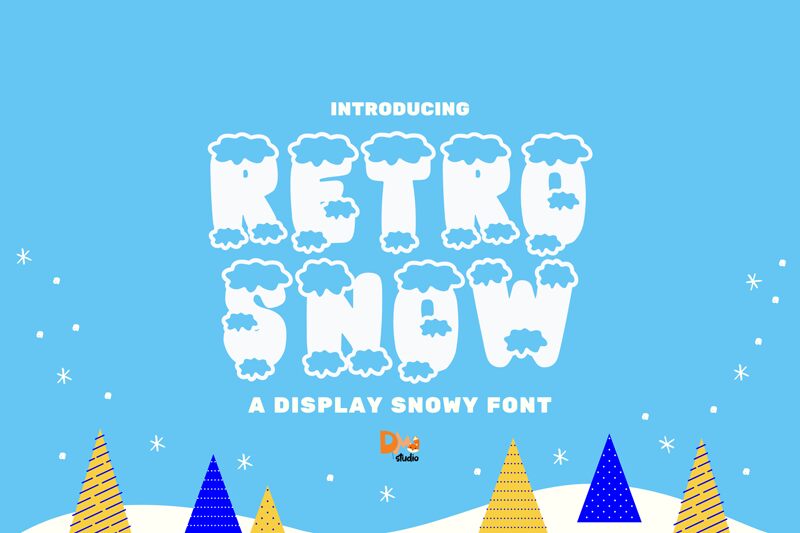
Retro Snow font by DM Letter Studio - Dimas Prasetyo embodies a festive, cheerful holiday spirit. It has a whimsical style which gives it a bold presence and an overall nostalgic feel. The eye-catching letter design suggests a winter theme that adds to its visual uniqueness. Whether you are celebrating Christmas, Halloween, Thanksgiving, or any other memorable day of the year, this eye-catching decorative font is the perfect option for your festive design projects.
Although Retro Snow is originally a holiday font, its potential applications are unlimited. Bring a magical feel to your logo, packaging, greeting cards, and branding visuals with this uniquely lovely free font. Titles for a book, album, or movie can also look awesome with this magic snow effect font as the main typeface.